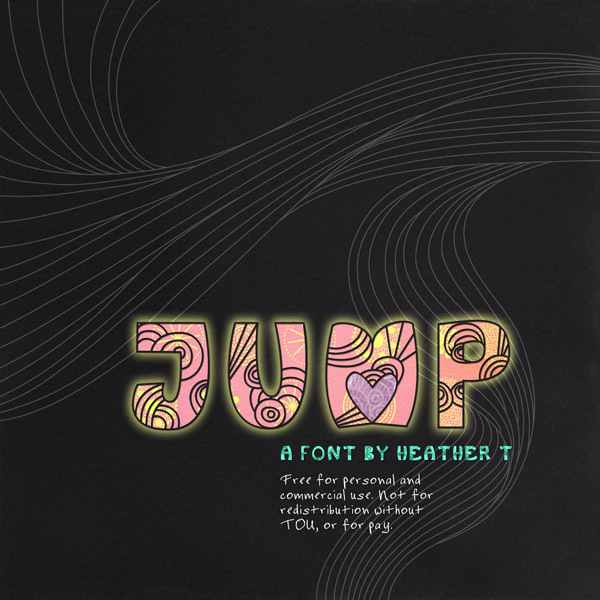
Jump by Heather Taylor is a free decorative outlined font filled with cheerful doodle-like ornament. Broad, irregular capitals carry clusters of concentric circles, sweeping bands, hearts, and small geometric shapes inside their open forms. Every letter becomes a miniature illustration.
The repeated circles and radiating lines connect readily with hand-drawn patterns, making the font useful for children's publishing, craft packaging, and playful event posters. In merchandise and toy branding, the decorated interiors can function as part of the artwork itself, echoing stickers, coloring-book graphics, and busy pattern work rather than serving as neutral lettering.